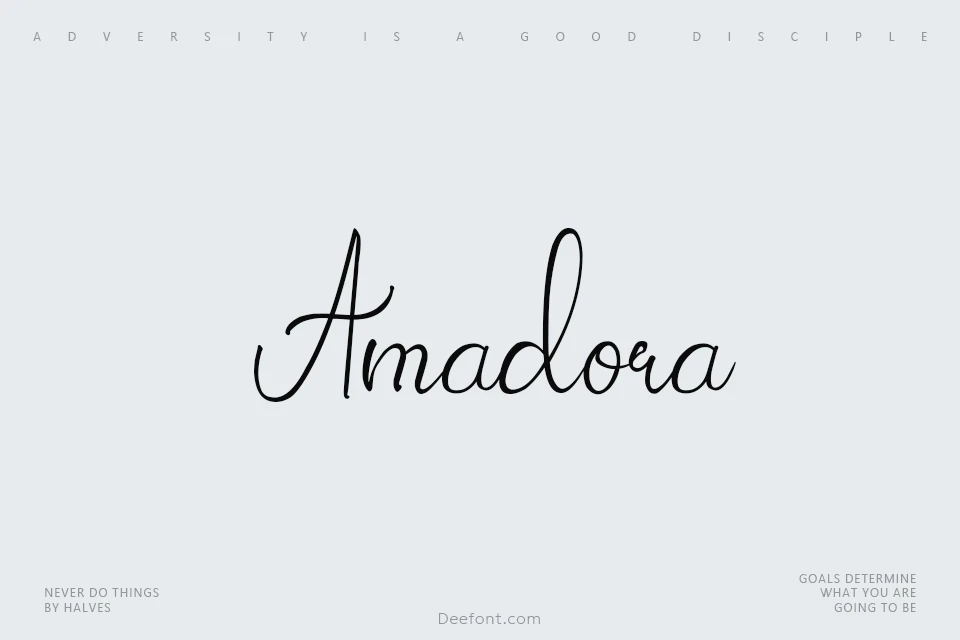
Amadora Font
Amadora Font is a fun and chic font which is perfect for your fun and casual project. Made for any professional project branding, such as, signature logos, watermark, wedding invitation, branding, promotion, product packaging, and more. Every letter has a unique and beautiful touch.